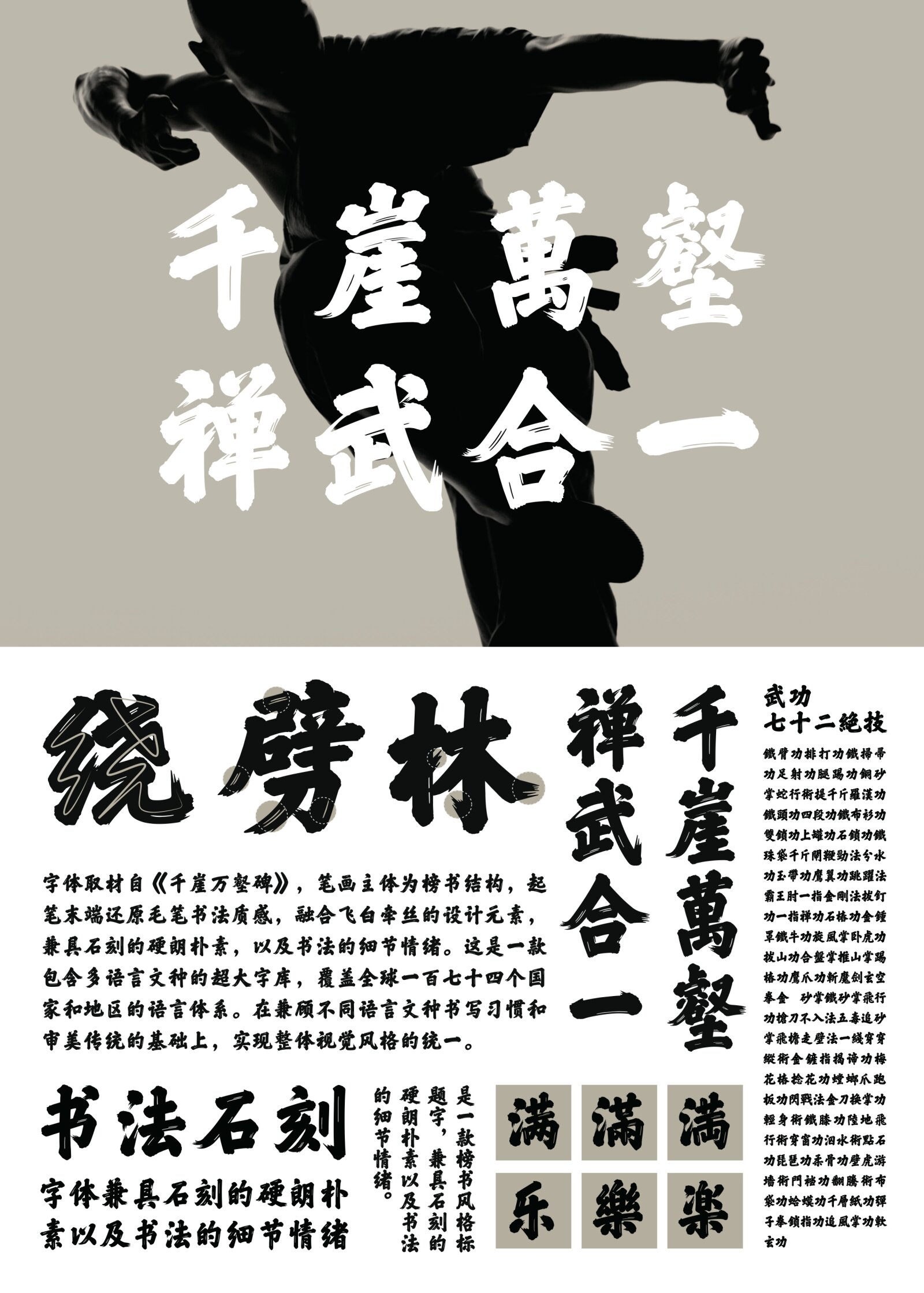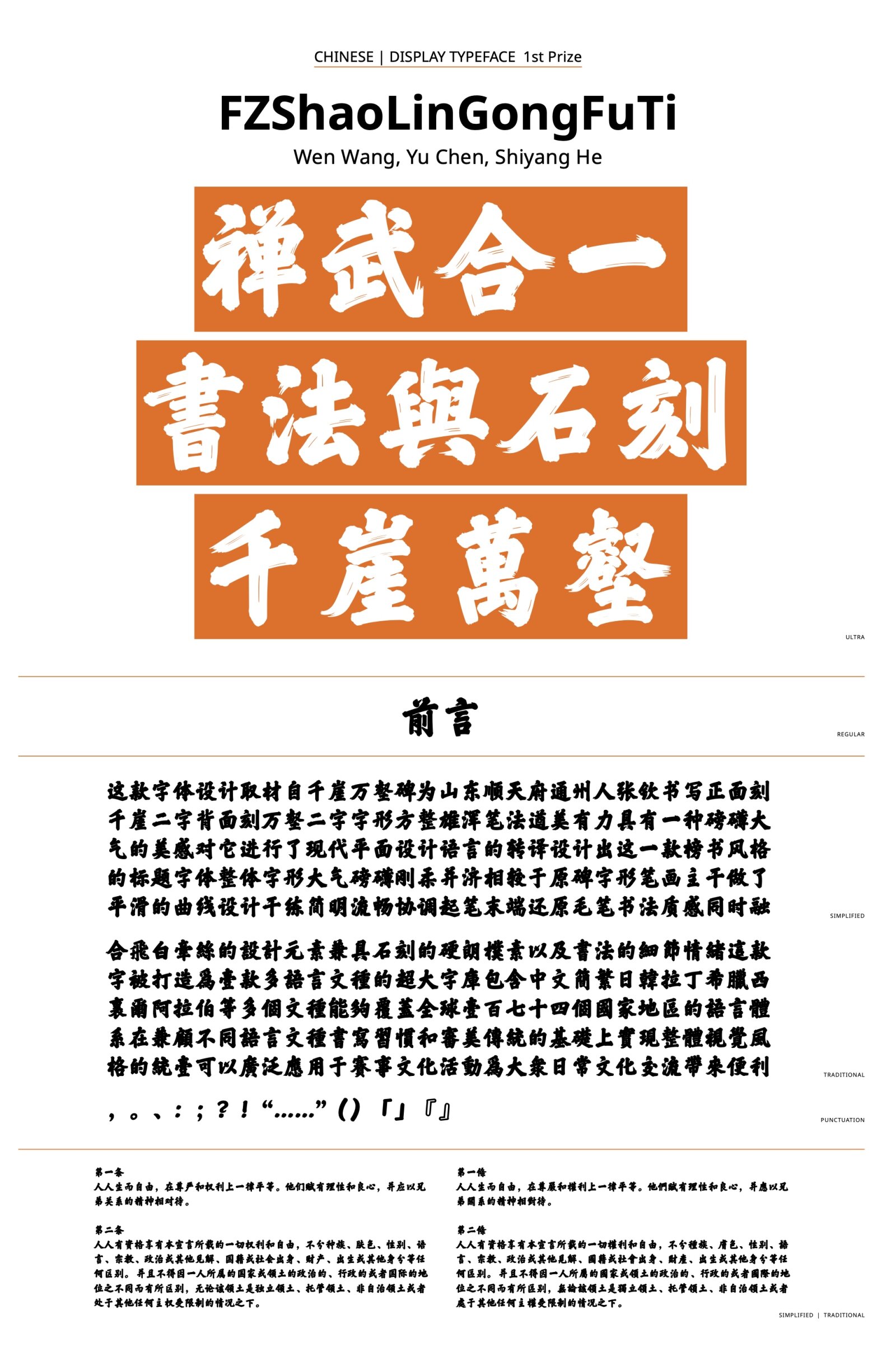
FZ Shao Lin Gong Fu Ti
by Wen Wang, Yu Chen, Shiyang He
Chinese
The typeface is inspired by the “Qianya Wanhe” stele at Shaoling Temple. Grand, and full of strength tempered with softness, it is a perfect fusion with the image of Shaolin kung fu, having both the flowing grace of semi-cursive script and the calmness and sturdiness of stele inscriptions.